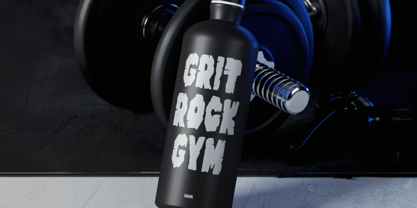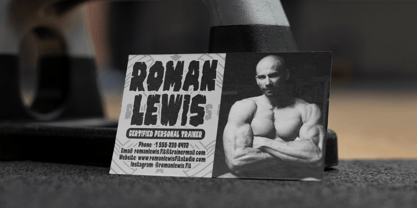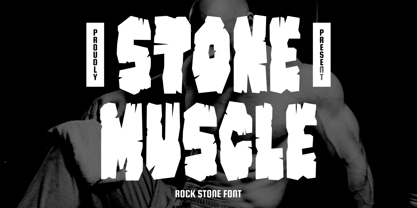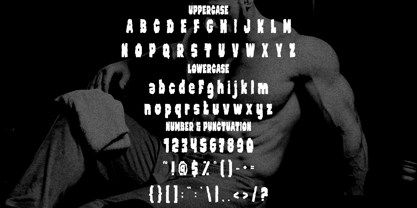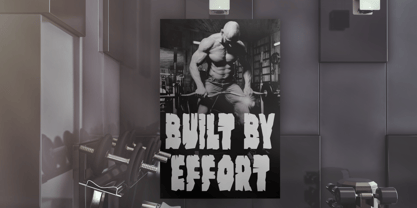
Stone Muscle
La famille de polices Stone Muscle a été conçue par Yesie Erma Yunita et publiée par Shanaf. Stone Muscle contient 1 styles. En savoir plus sur cette famille
Stone Muscle Rock Stone Font is a display typeface built with heavy proportions and sharply broken edges. Each character appears thick and compact, creating a dense and powerful visual block. The letter height feels sturdy rather than tall, which reinforces a grounded and stable impression. Stroke weight is consistently bold, while edges look chipped and irregular, mimicking natural stone fractures. Inner counters are narrow and angular, adding tension and weight to every glyph. The texture feels rough and raw, as if letters were carved from solid rock. Spacing between characters remains tight, helping words feel unified and muscular. Uppercase and lowercase sets share the same strong structure, ensuring consistency across layouts. Numbers and punctuation follow the same rugged construction, maintaining a cohesive typographic system. Stone Muscle Rock Stone Font expresses a bold, strong, and masculine style with a clear rock and stone identity. The overall mood feels tough, confident, and industrial, without leaning into decorative excess. This font is ideal for logos, branding systems, headlines, posters, and advertising that demand authority and presence. It also works well for packaging, business identities, book covers, magazine titles, stickers, and film titles. Stone Muscle Rock Stone Font helps brands communicate power, durability, and determination through typography alone. The bold forms ensure high visibility across print and digital media. Designers can rely on this font to anchor strong messages and reinforce themes of strength, discipline, and resilience. Stone Muscle Rock Stone Font becomes a visual statement for projects that need impact, confidence, and unmistakable toughness.